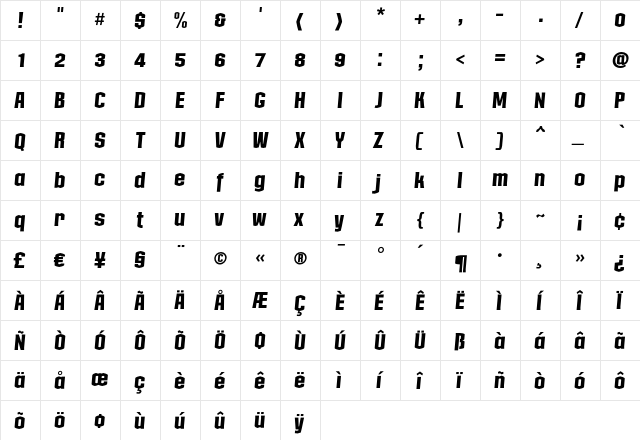
Collos Italic
Design Context for Collos Typeface
Collos takes a measured approach to typography — its balanced proportions and neutral character make it a reliable workhorse for both digital and print work. The slanted form adds forward momentum and visual energy.